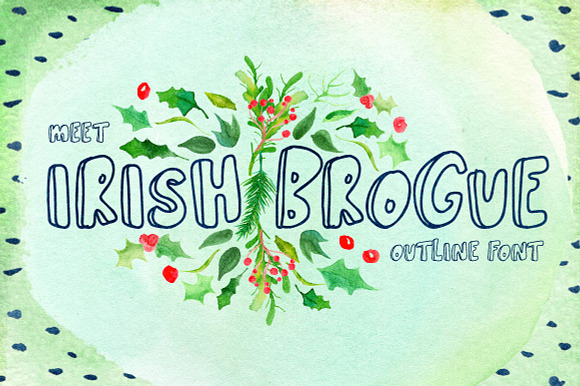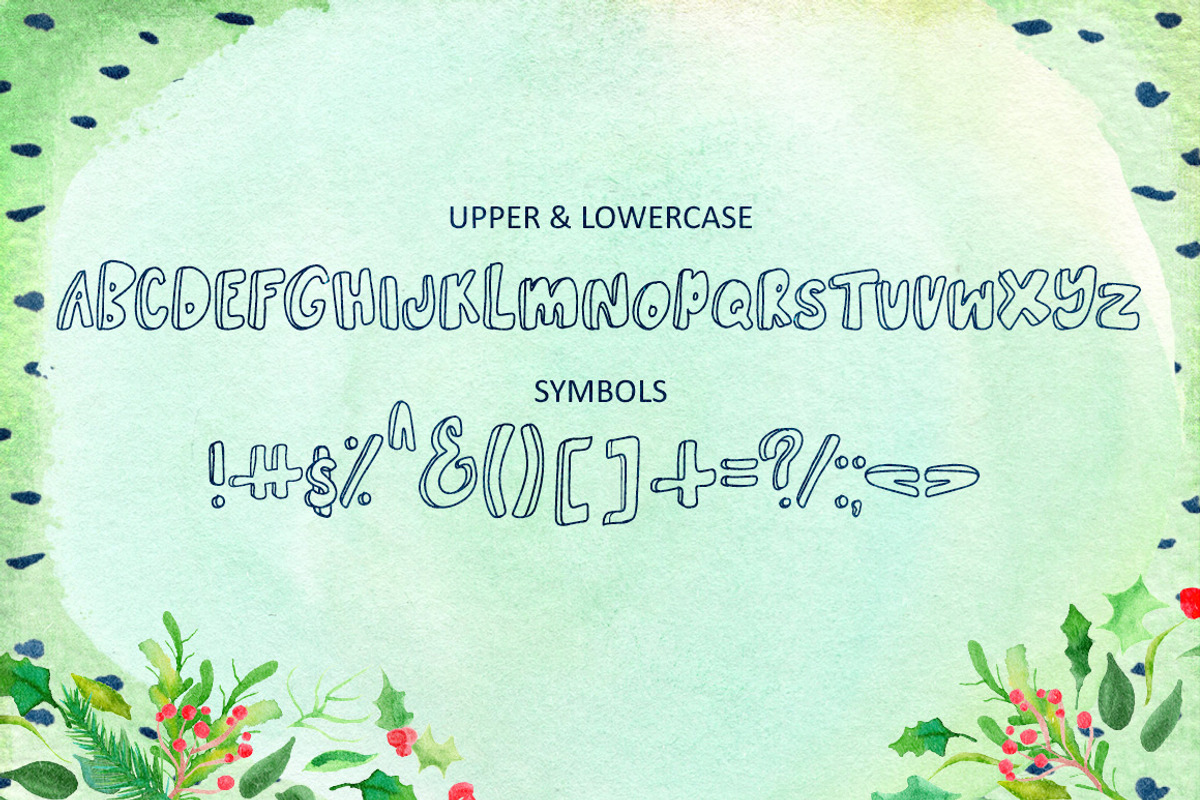
Irish Brogue Font
This is Irish Brogue. A trendy outline block font. This font is part of the Gobsmacking Font Bundle here
Why Irish Brogue Font is worth a look
Irish Brogue Font by Creativeqube Design fits naturally into Branding, posters, packaging, typography.